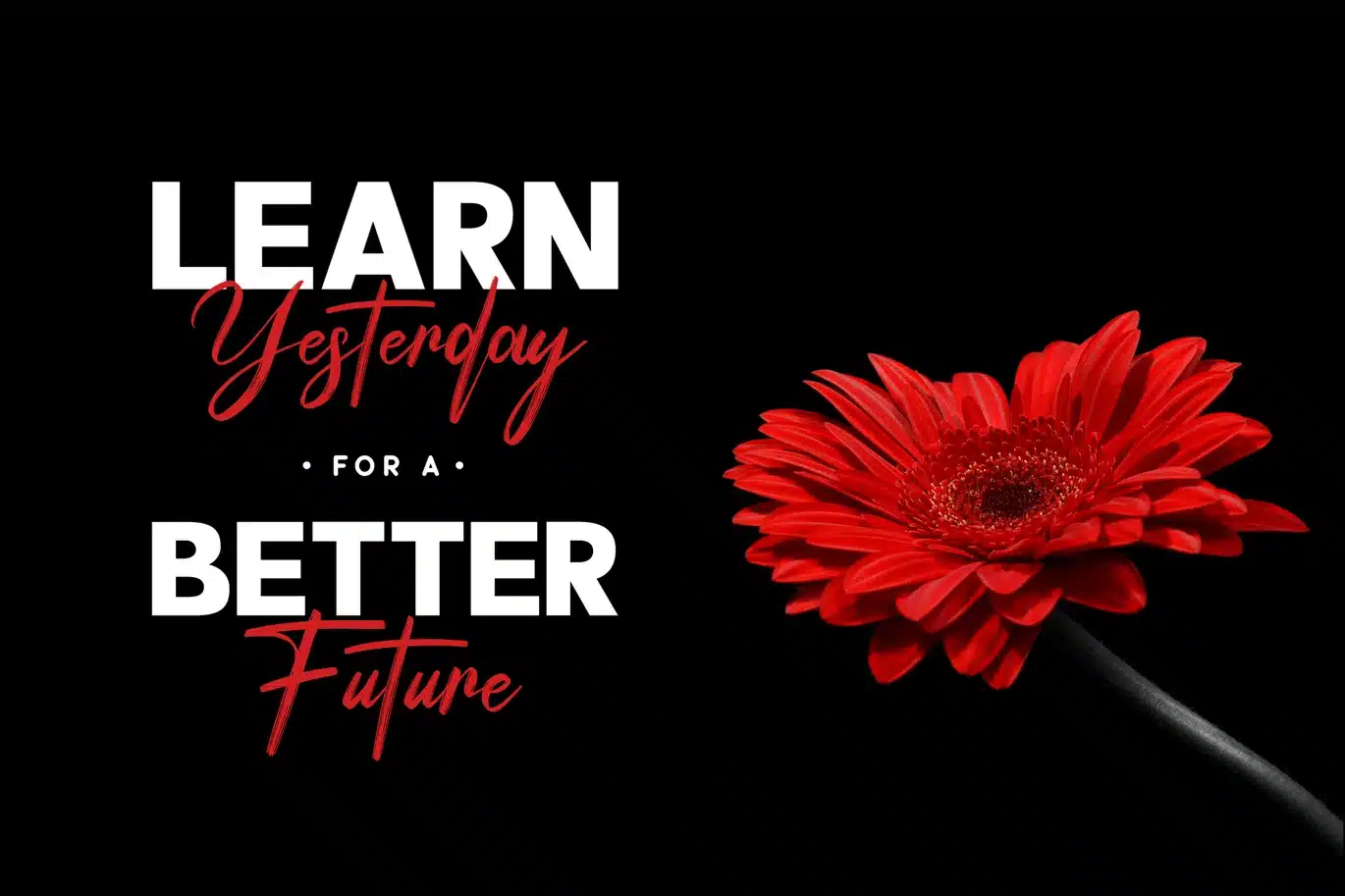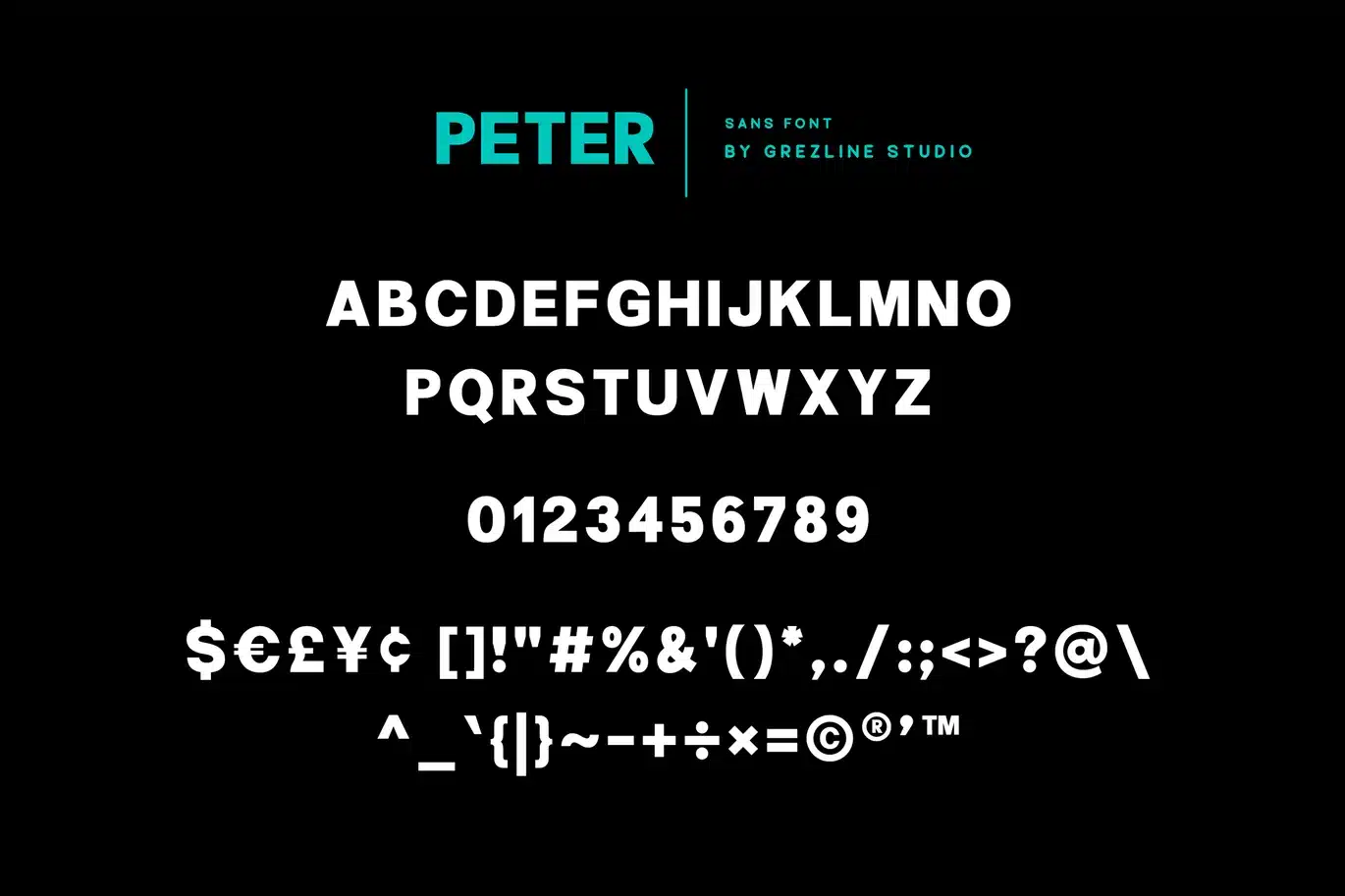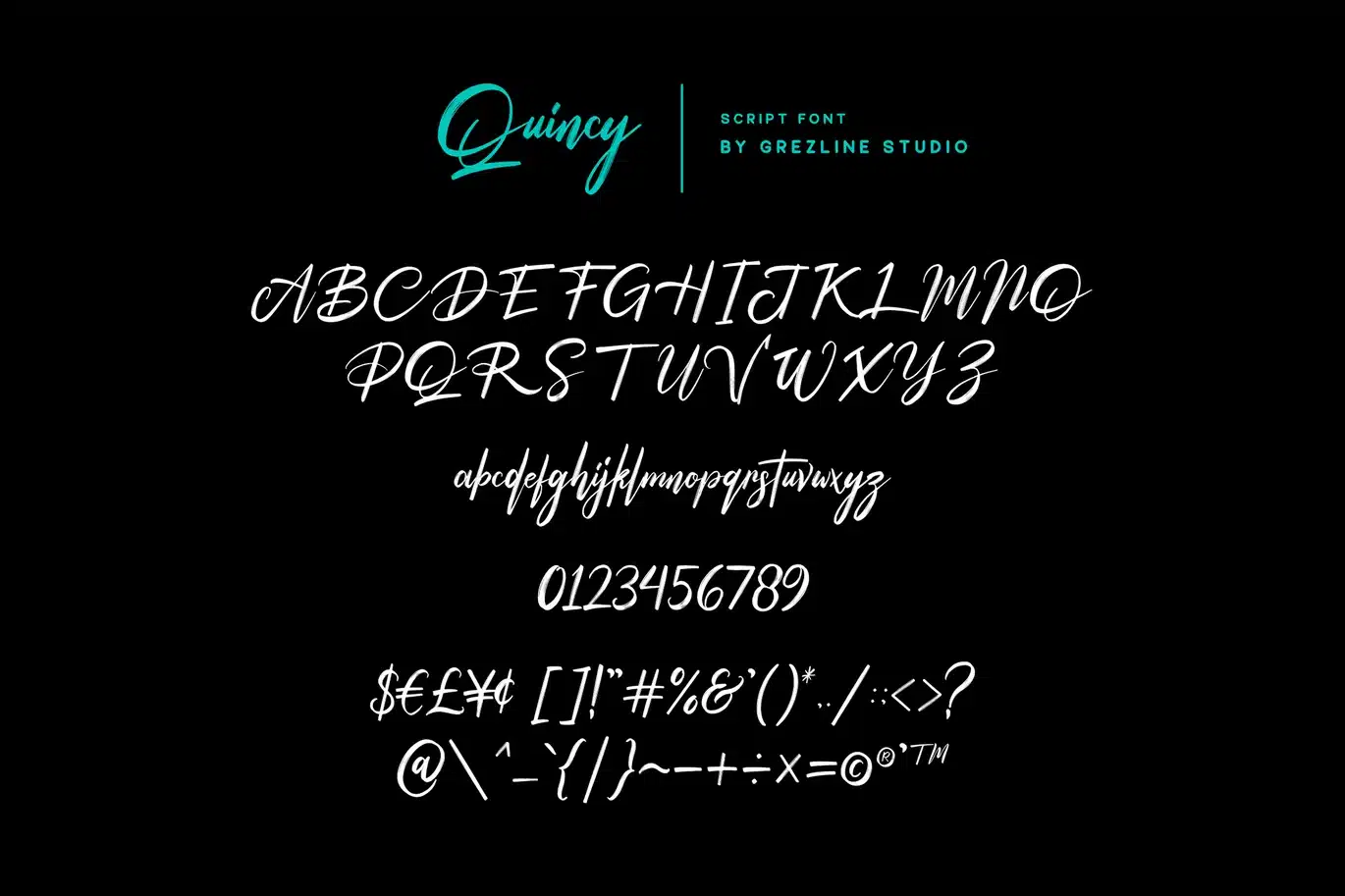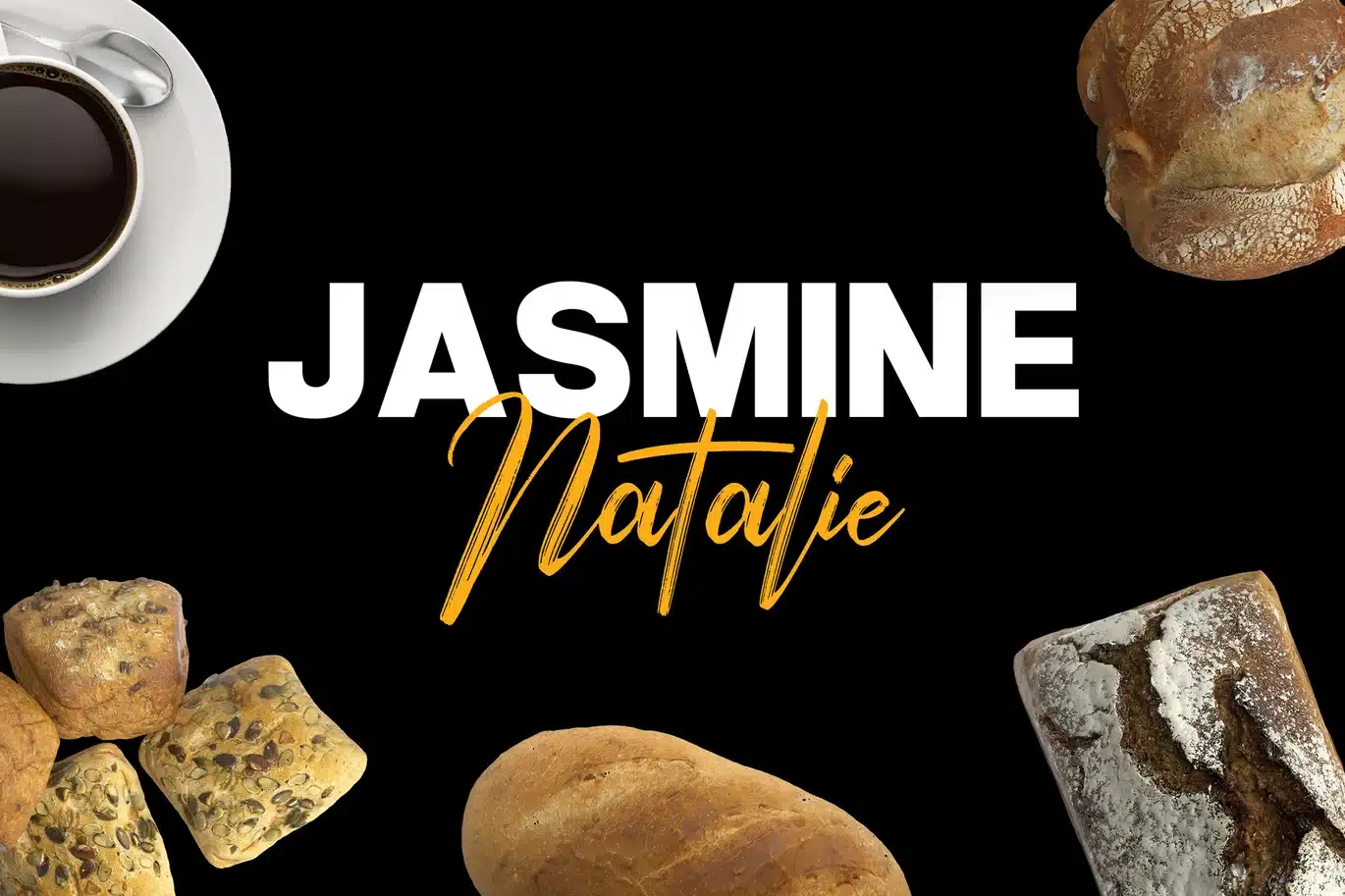
Peter Quincy – Font Duo
Peter Quincy is a unique font duo with sans and hand-drawn script styles. It is perfectly suited for a wide variety of projects!
Feature :
- Numerals & Punctuations
- Multilingual Language